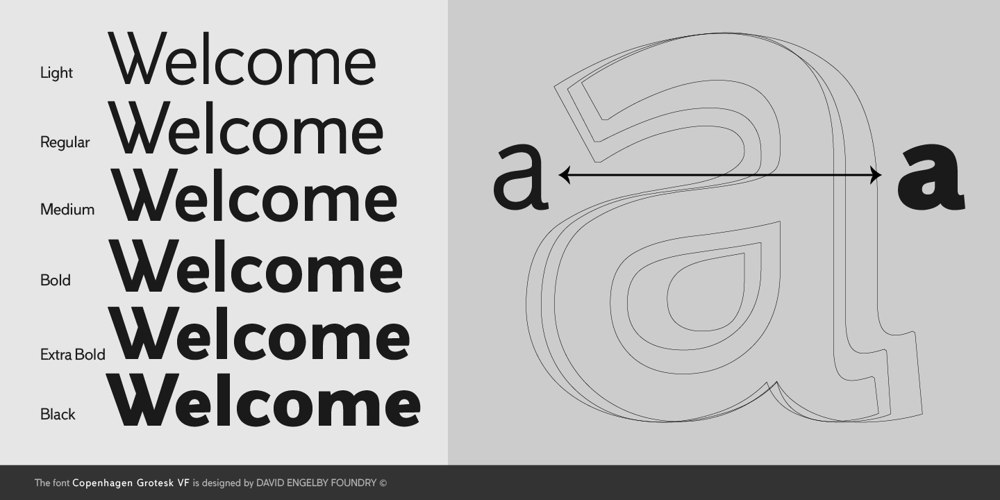
Copenhagen Grotesk VF
Copenhagen Grotesk VF font
Copenhagen Grotesk VF Font Family was designed by David Engelby and published by David Engelby Foundry. Copenhagen Grotesk VF contains 1 styles and family package options. Copenhagen Grotesk is now a variable font with Black as a completely new added style! Add as many typographic styles to your design as you want to with a wide range of variable styles, from Light to Black.The static styles are Light, Regular, Medium, Bold, Extra Bold and BlackThe font is slightly redesigned from its Nova edition.